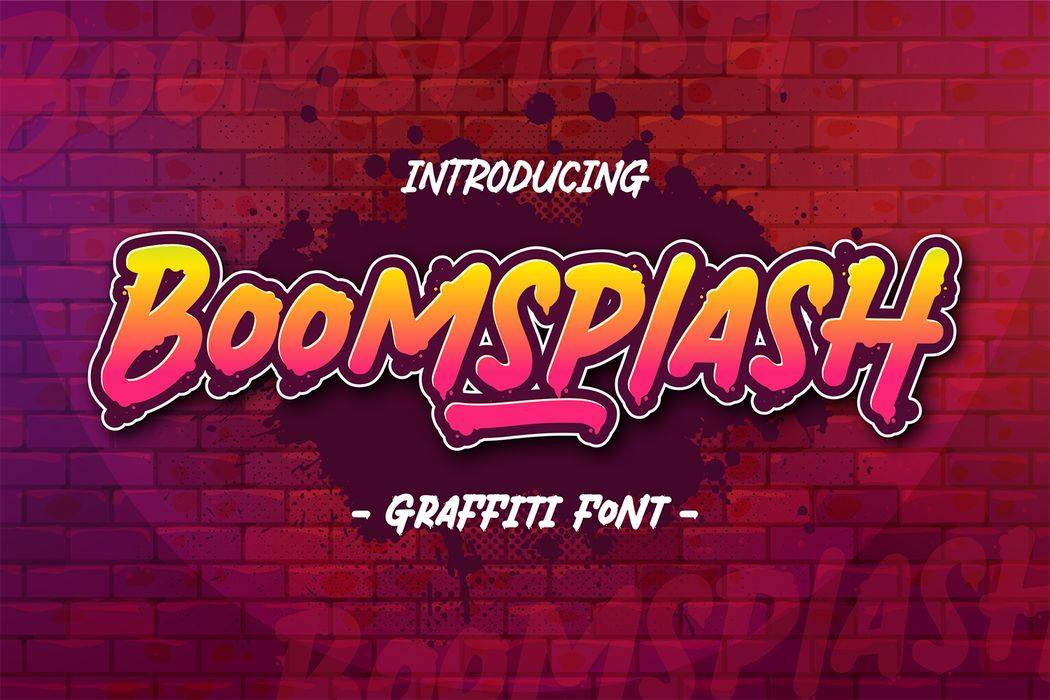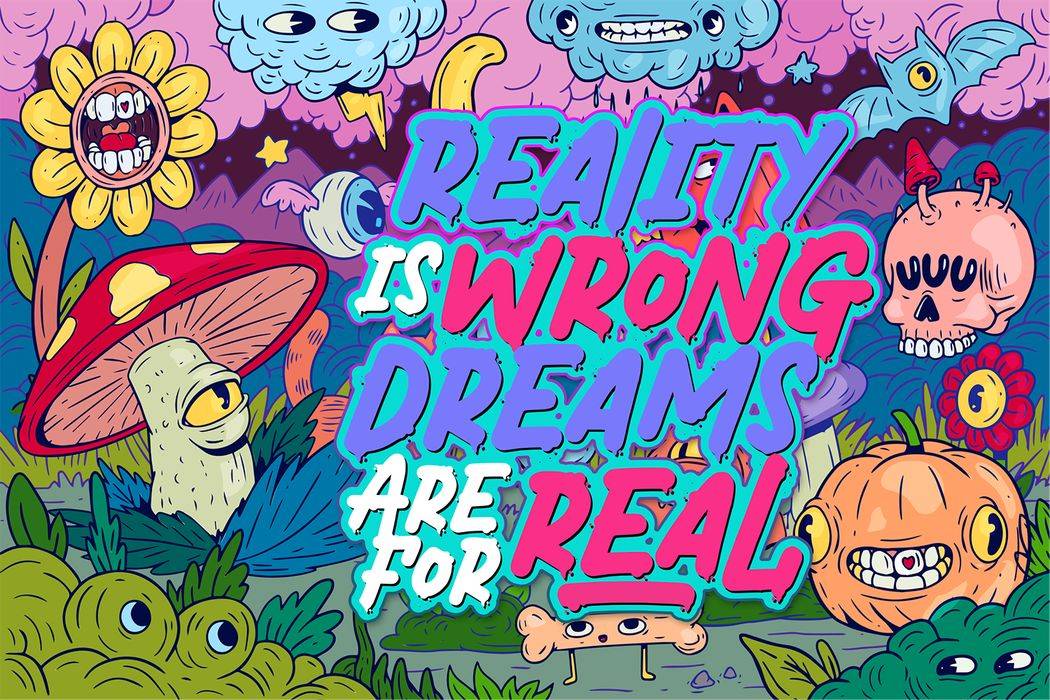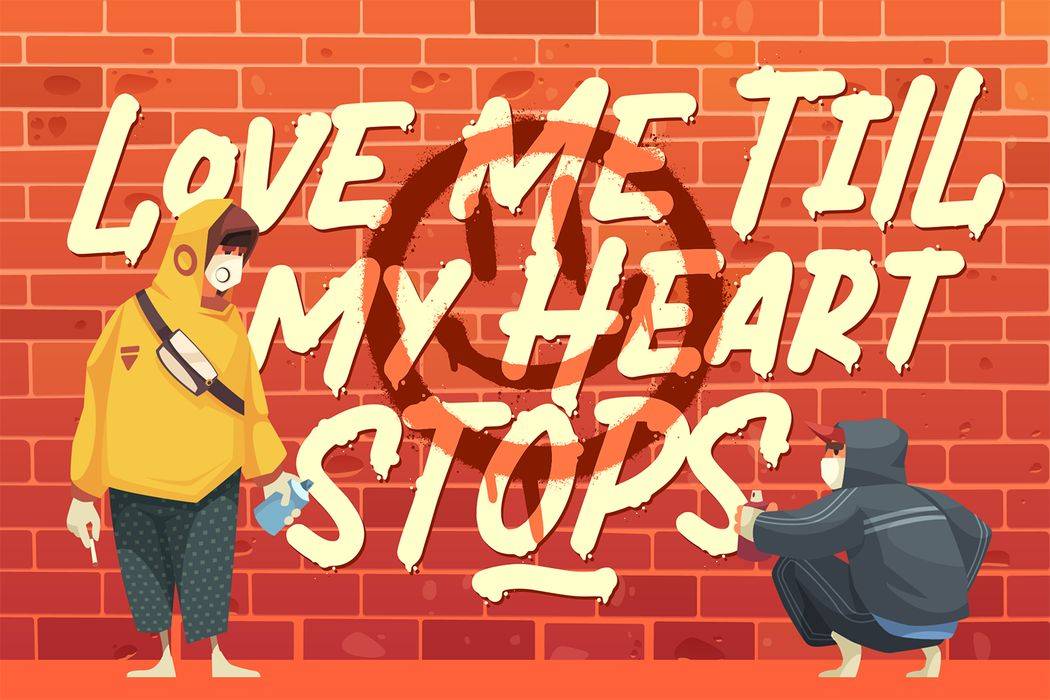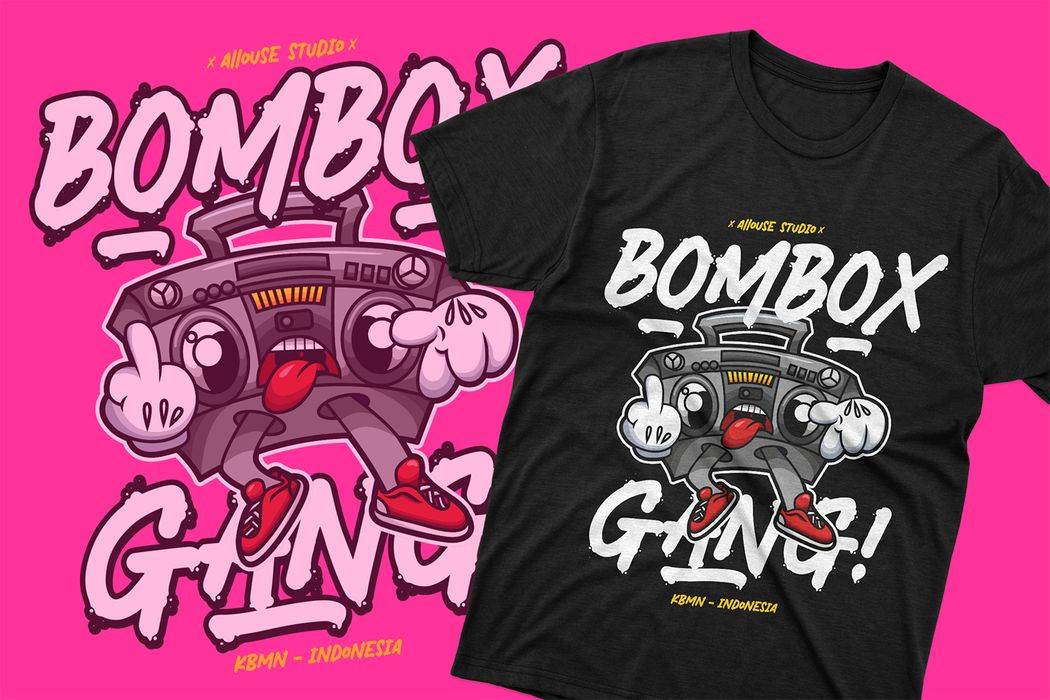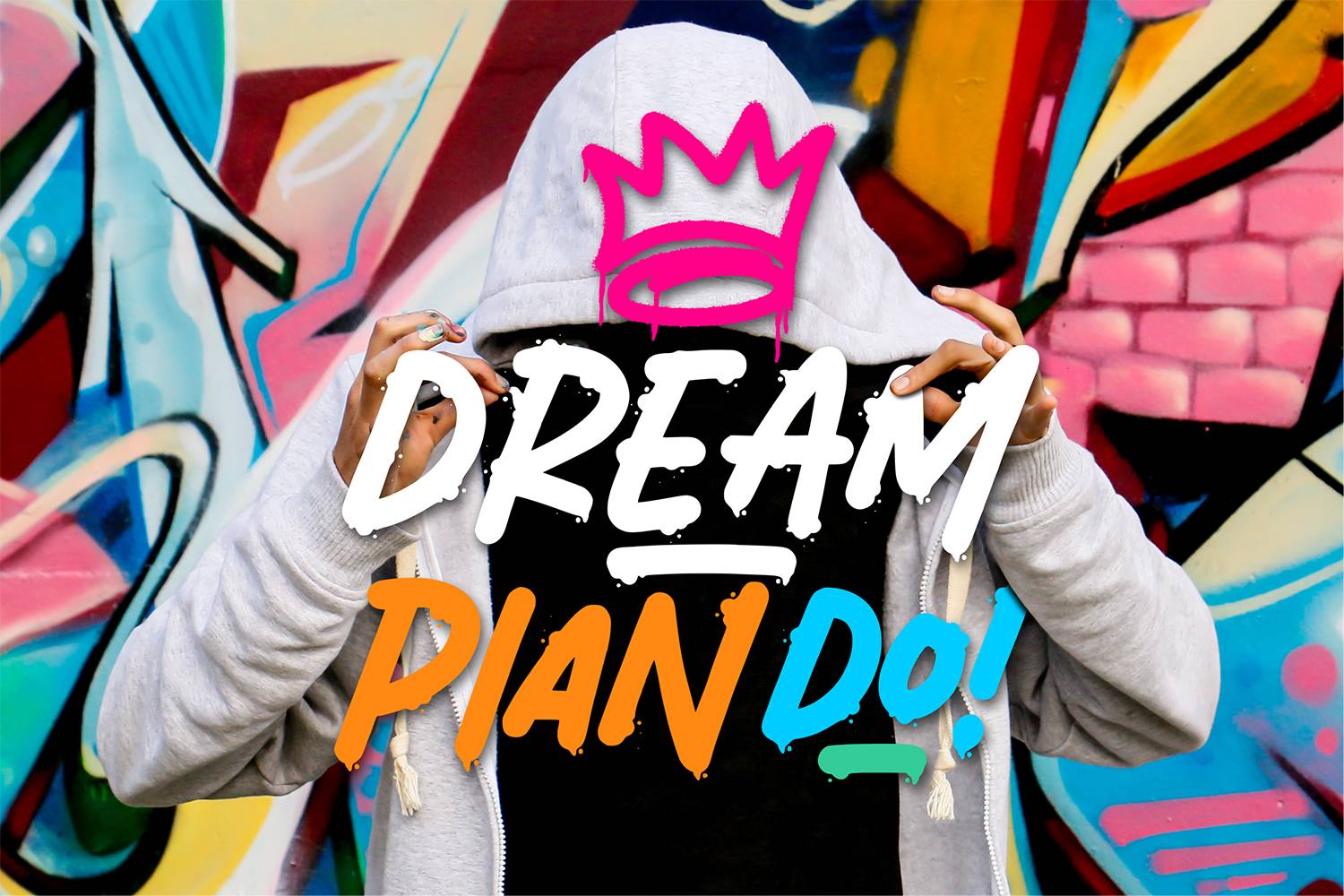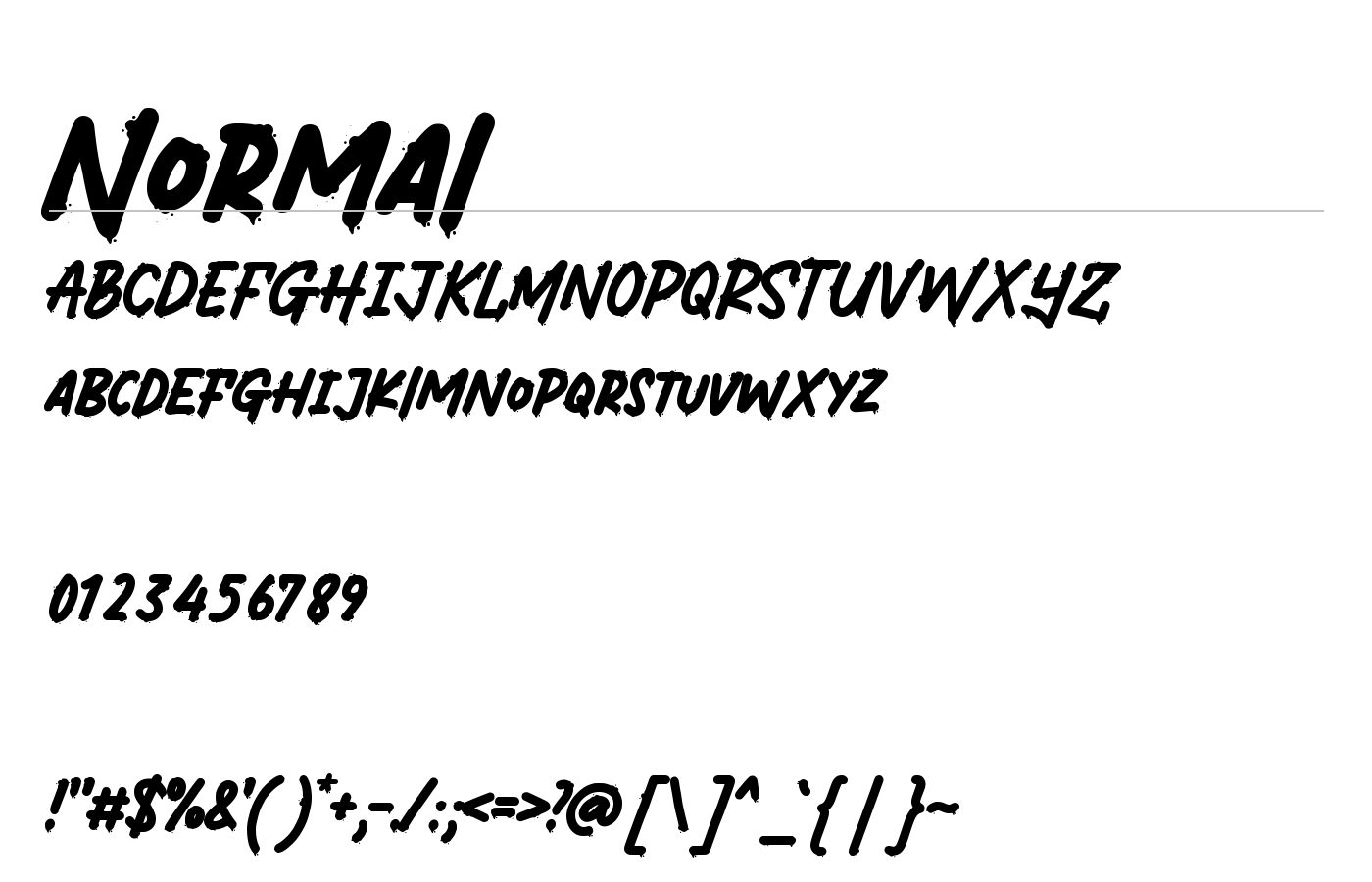
Boomsplash is a lively, hand-drawn script font with bold, irregular strokes that mimic paint splatters and brush marks, giving it an energetic and edgy feel. Its uppercase letters are prominent and dynamic, with a rough, casual style that makes it ideal for creative and informal designs such as posters, logos, and branding projects seeking a youthful, artistic vibe. This font works best when used to add personality and a sense of spontaneity, rather than for long passages of text.
Boomsplash Font
About Boomsplash Font